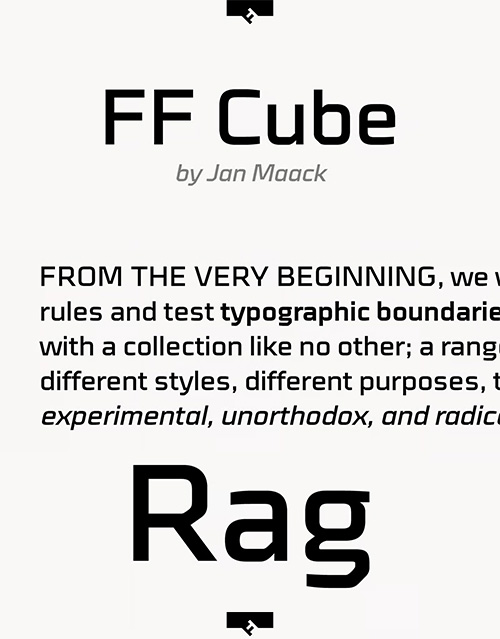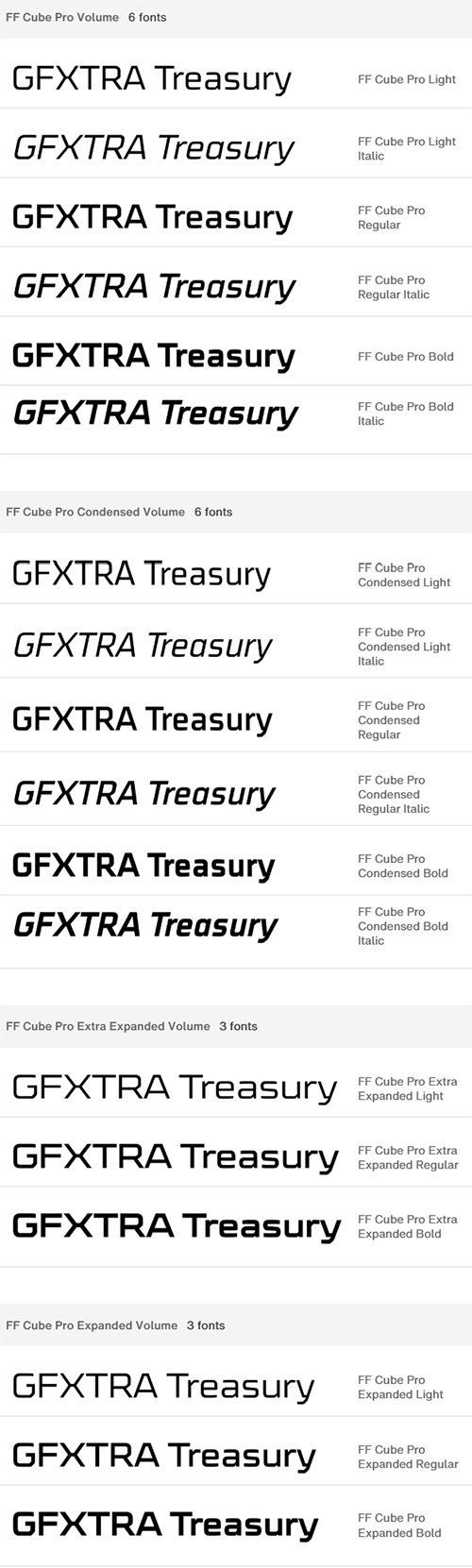
FF Cube - 18 Styles Font Family
- Danish type designer Jan Maack created this display and sans FontFont in 2008. The family has 18 weights, ranging from Light to Bold in Condensed, Normal, Expanded, and Extra Expanded (including italics) and is ideally suited for advertising and packaging, logo, branding and creative industries, poster and billboards as well as sports. FF Cube provides advanced typographical support with features such as ligatures, alternate characters, case-sensitive forms, and stylistic alternates. It comes with tabular oldstyle and tabular lining figures.